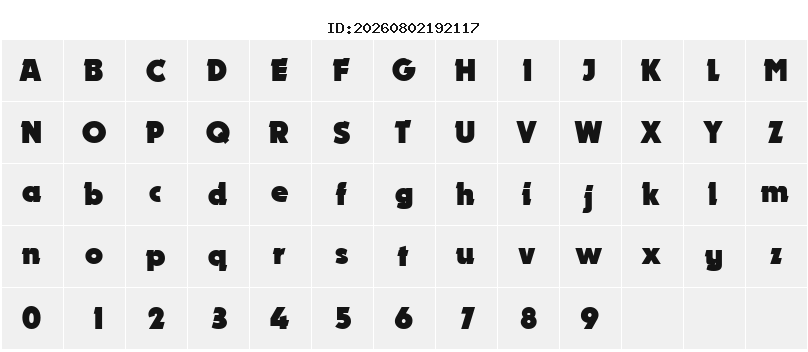
• Font Name: Nougat
Nougat.ttf is a modern, elegant sans-serif font designed for ultimate readability and visual harmony. Perfect for branding, headlines, web design, and print materials.